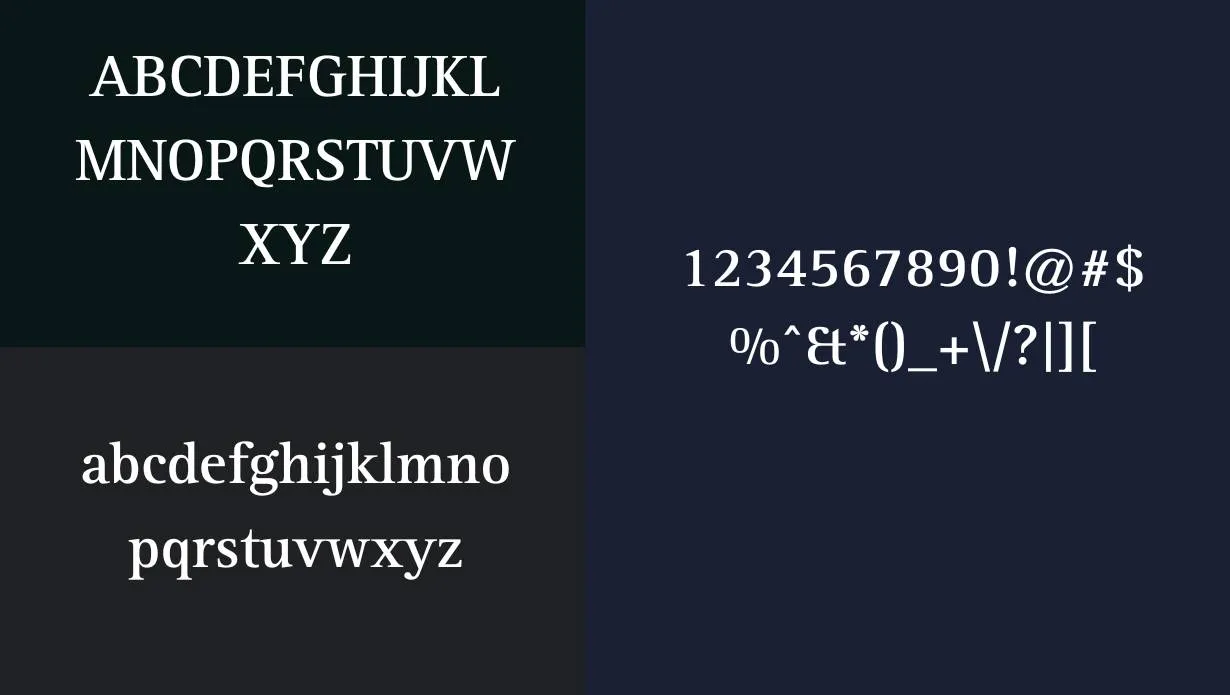
Rotis Font provides a modern and simple touch to your writing. Its clean lines and straightforward design give a contemporary and minimalistic appearance to your words.
If you want your writing to be sleek and uncluttered, Rotis Font is the way to go. It’s like presenting your words in a neat and organized fashion, where each letter contributes to the overall clarity of your message.
| Name | Rotis Font |
| Designer | Otl Aicher |